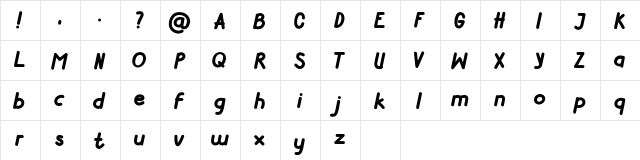
Get Lucky Regular
Design Context for Get Lucky Typeface
Get Lucky is a composed and adaptable typeface that performs quietly and consistently across a wide range of design contexts.